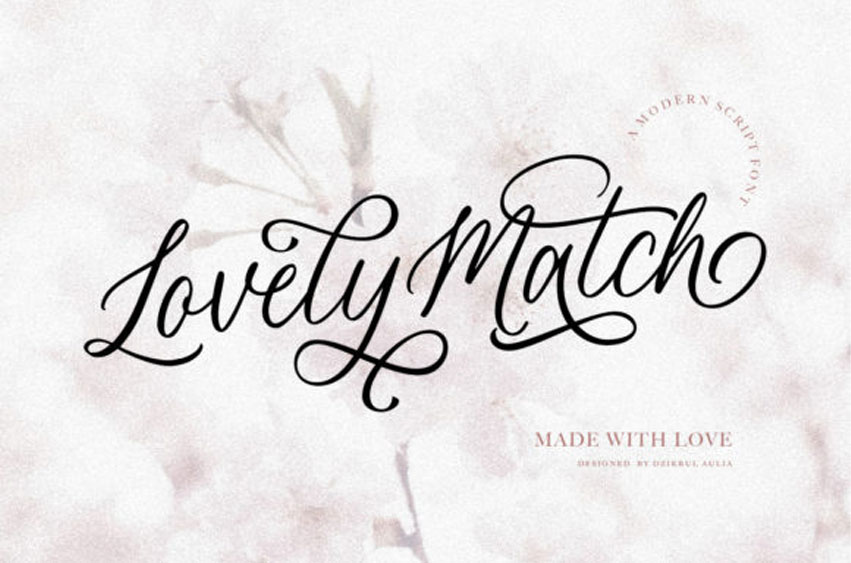
Lovely Match Font is a stylish and delicate script font. It is the best choice for creating eye-catching logos, branding, and quotes.
Every letter has a unique and beautiful touch, which will make your design come alive!